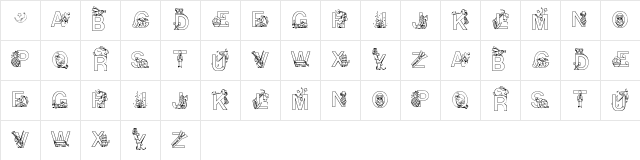
Alphapix Regular
Design Context for Alphapix
Alphapix is a composed and adaptable typeface that performs quietly and consistently across a wide range of design contexts.